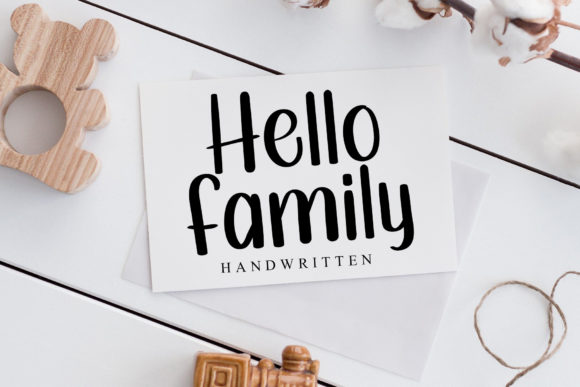
Special Easter Font
db-ku.com - Script & Handwritten -- Special Easter is a round lettered and chic handwritten font. It is perfect for use on wedding invitations, greeting cards, billboards, logos, business cards, and any other design that requires a customized touch.